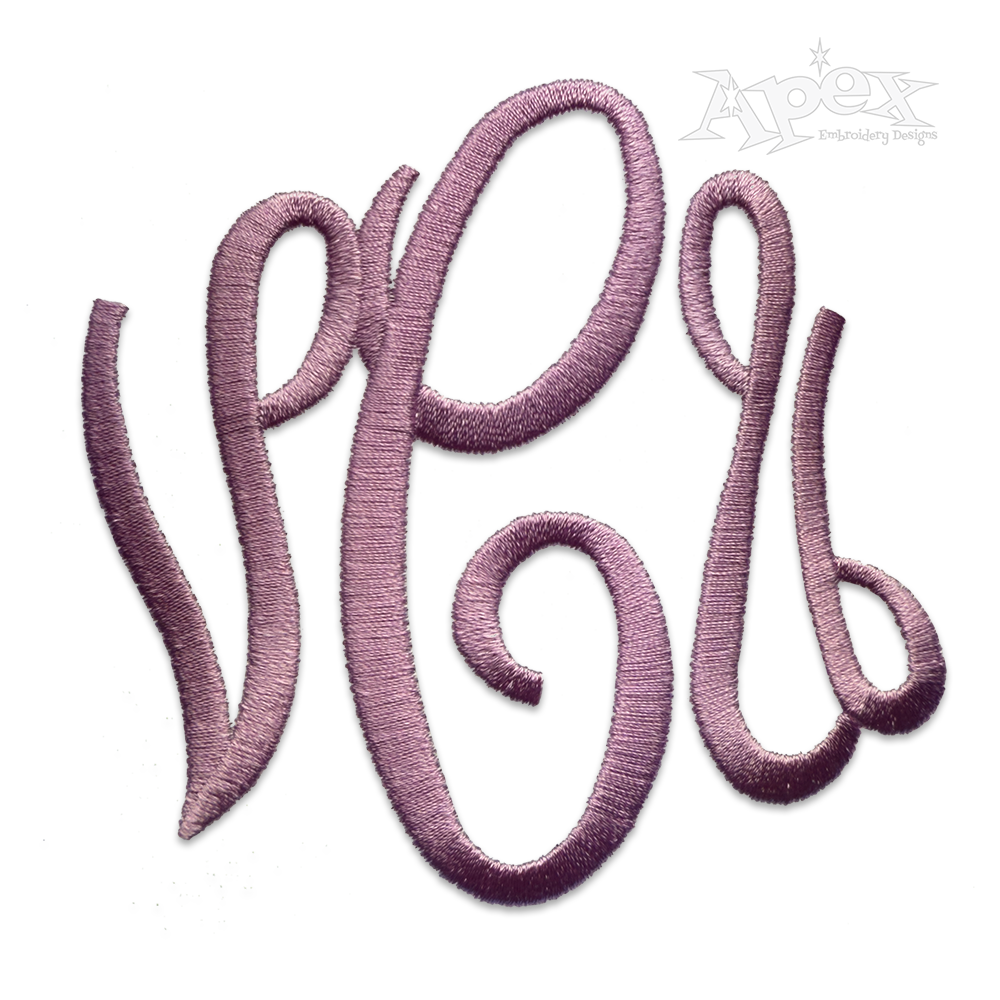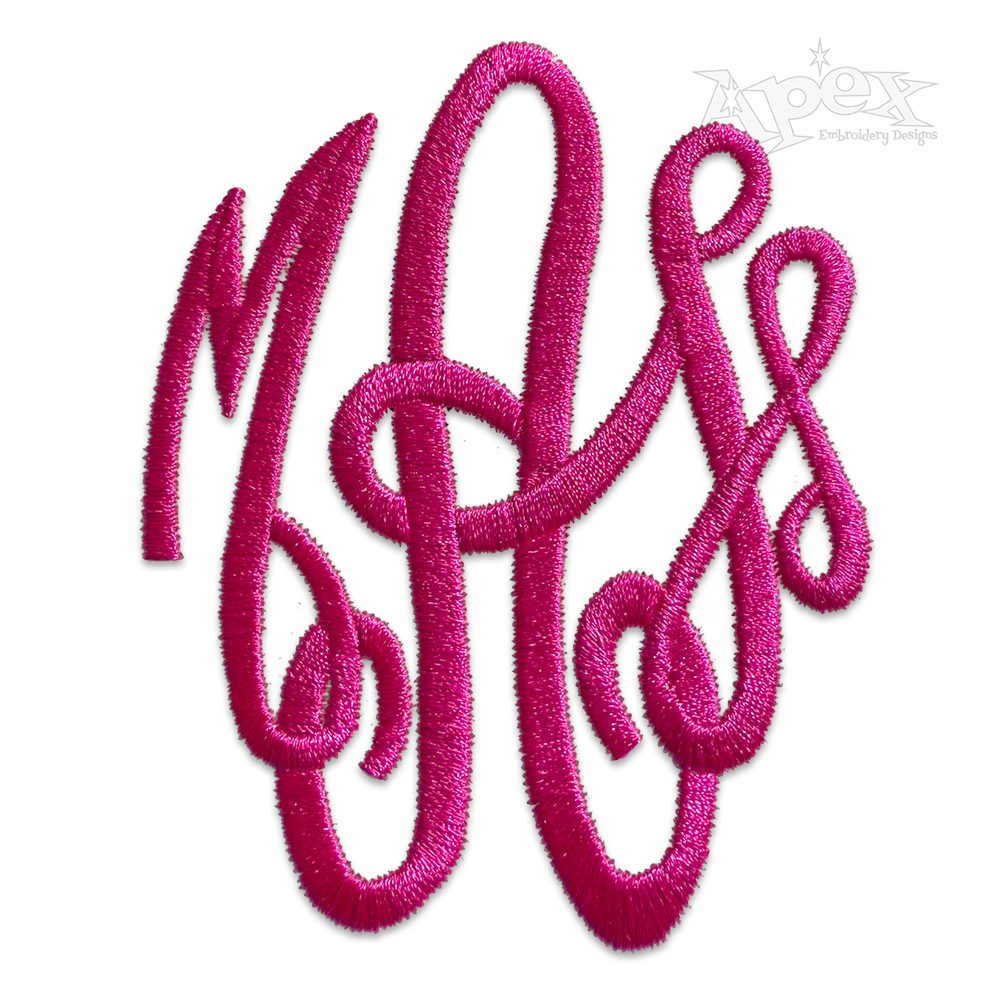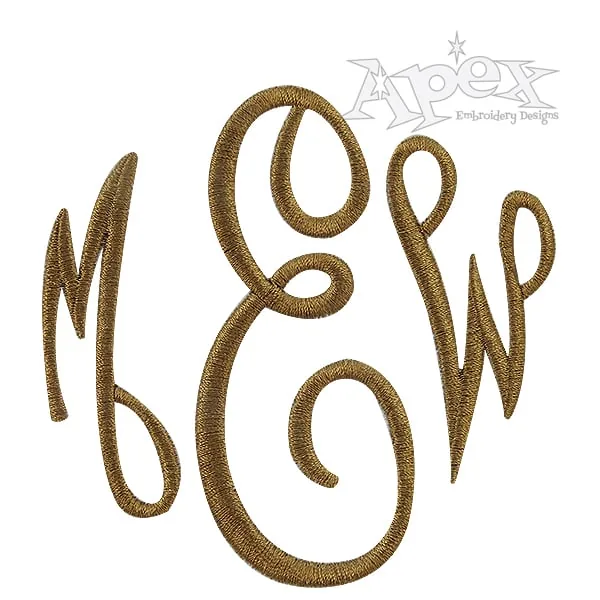
Empire Monogram Embroidery Font
Conceived in the spirit of neoclassical grandeur and aristocratic heraldry, the Empire Monogram embroidery font brings stately elegance and architectural balance to bespoke needlework. As digitizers, we envisioned a crest-like composition that commands presence across high-end textiles—where sweeping, gracefully bowed flanking letters frame an imposing, majestic center initial in flawless harmony. Whether destined for crisp heirloom table linens or tailored resort wear, this monogram evokes the distinguished romance of classic European estates, transforming everyday thread into a lasting statement of bespoke luxury.
The Empire Monogram collection is thoughtfully structured across two distinct styling executions to ensure pristine stitch formation from intimate accents to breathtaking statement pieces:
- Regular Collection (Satin Stitch): Includes 2.5-inch and 3.5-inch heights, digitized with lustrous, high-density satin columns for crisp, polished edges on fine fabrics.
- Large & Grand Collection (Step Stitch): Includes 6-inch, 8-inch, 10-inch, and an extraordinary 12-inch height, digitized with an artisan step stitch (not a heavy, flat tatami fill) that guarantees fluid drape, gorgeous dimensional texture, and effortless machine performance.
- Complete Tri-Letter Typography: Every size includes dedicated Left, Center, and Right letters specifically proportioned to interlock and form a balanced, traditional monogram silhouette.
Project Ideas for Empire Monogram
The refined proportions of this alphabet invite endless possibilities for personalized gifting and distinguished interior styling:
- Luxury Table Linens: Stitch the 2.5-inch satin monogram in tonal mercerized cotton on hemstitched linen cocktail napkins or lavish banquet runners.
- Heirloom Bedding & Pillow Shams: Make an unforgettable focal point on master suite duvet covers and European pillow shams using the dramatic 10-inch or 12-inch step-stitch monogram.
- Bespoke Bridal Trousseau: Embellish the back of silk bridal dressing gowns or velvet travel pouches with the graceful 3.5-inch or 6-inch sizing.
- Resort-Ready Canvas Totes: Elevate heavy-duty boat bags, duffels, and tennis totes with bold 6-inch or 8-inch initials in rich navy, forest green, or crisp ecru.
- Personalized Plush Gifting: Crown velour bath sheets, cashmere throws, and heirloom baby blankets with a classic three-letter family mark that endures for generations.
A crest of this caliber deserves thoughtful positioning to highlight its stately geometry:
- Corner Diagonal: For dinner and cocktail napkins, angle the monogram at 45 degrees, set 1.5 to 2 inches from the bottom-right corner point for an understated, formal aesthetic.
- Center Sham Alignment: Position the large-format monogram directly in the center of standard, queen, or euro decorative pillow shams, ensuring visual equilibrium with the flange.
- Center Back & Chest Placements: Feature the 2.5-inch monogram 2.5 inches down from the shoulder seam for a classic left-chest pocket placement, or center the 8-inch mark between the shoulder blades on luxury bathrobes.
- Throw Blanket Borders: Position the monogram diagonally 4 inches inward from the lower right fringed edge for an effortless drape when folded across a sofa or reading chair.
Empire Monogram Craft & Letterform Details
Traditional monograms often stumble when scaling between diminutive accessories and massive home accents; our digitizing approach bridges this divide with artistic precision. For the 2.5-inch and 3.5-inch sizes, we engineered smooth, fluid satin columns with strategic underlay to give the letters a rich, elevated bead that catches the light without pinching delicate wovens. As the letterforms scale into statement territory—reaching up to an expansive 12 inches—satin stitches would bridge too far, risking snagging and excessive tension. Instead of resorting to a rigid, cardboard-like standard fill, we developed an intricate, low-tension step stitch that replicates the hand-stitched needlepoint texture of vintage royal tapestries. The outer letters sweep inward with a gentle, curved taper, embracing the statuesque center letter in a harmonious embrace that celebrates the finest traditions of custom monogramming.